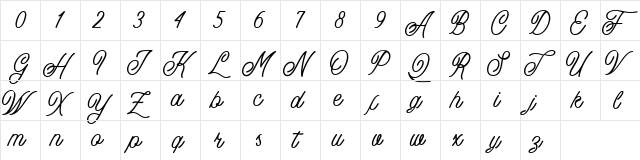
Buryland Script DEMO Regular
| Foundry | YdhraStudio |
| Designer | Yudha Rahmat Ageng |
Design Context for Buryland Script DEMO Typeface
Buryland Script DEMO brings a calligraphic fluidity to the page — its connecting strokes and expressive curves give it an unmistakably human quality.